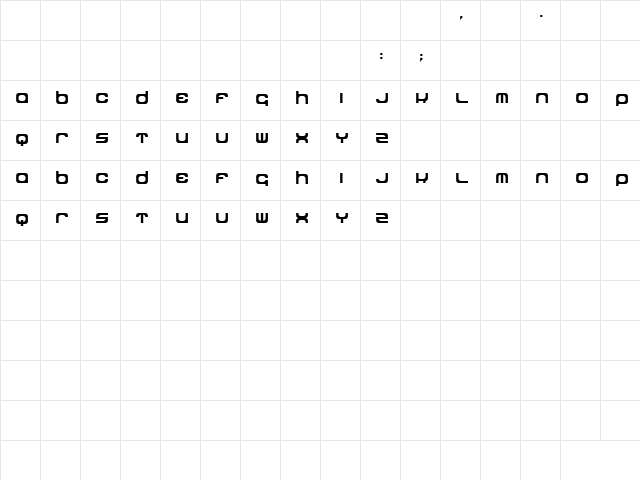
dipdop Regular
Design Context for dipdop Typeface
dipdop takes a measured approach to typography — its balanced proportions and neutral character make it a reliable workhorse for both digital and print work.